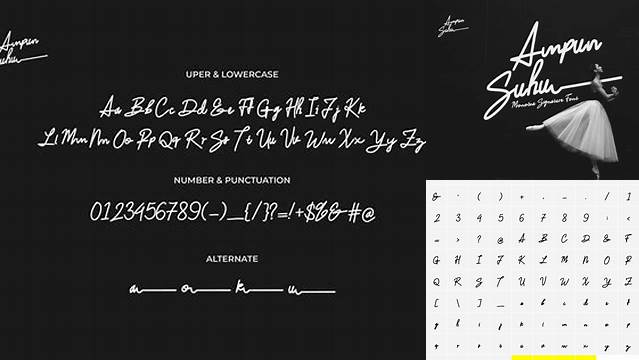
Free Ampun Suhu Font: Hand-Drawn Script For Creative Projects
Hey guys! Are you on the hunt for a font that screams personality and charm? Well, look no further! I'm stoked to dive into the world of the free Ampun Suhu hand-drawn script font. This font is an absolute gem for anyone looking to add a touch of authenticity and handmade feel to their designs. We're going to explore everything from its unique characteristics and potential applications to how you can snag this beauty for your projects. Get ready to unleash your creativity!
What Makes Ampun Suhu Font Special?
First off, let's talk about what sets Ampun Suhu apart from the crowd. This font is more than just letters; it's an expression! It's got that fantastic hand-drawn vibe that instantly makes your designs feel more personable and engaging. Think about it: how often do you come across a font that truly feels like it was crafted by hand? That's the magic of Ampun Suhu. It has that natural, slightly imperfect quality that adds so much character. This font's design gives a human touch to your projects. This font exudes warmth and approachability, making it perfect for projects where you want to connect with your audience on a more personal level. Whether you're a seasoned graphic designer, a budding entrepreneur, or just someone who loves playing around with fonts, Ampun Suhu is a must-have in your toolkit. It's versatile enough to be used in a wide range of applications, and it's super easy to use, even if you're not a font expert. You can create stunning visuals with this font because it has that handmade, personalized look.
Ampun Suhu shines in any creative endeavor where you want to convey a sense of genuine creativity. Let's be real; it’s the little details that make a big difference. Because the free Ampun Suhu hand-drawn script font is not your average font, it’s a work of art. Think of it as the secret ingredient that elevates your designs, making them stand out from the competition. When you choose Ampun Suhu, you're not just picking a font; you're choosing a style that adds depth and personality to your project. This font helps you express your creativity without boundaries. So, buckle up, design enthusiasts! Because you're in for a treat. I'm excited to share all the cool stuff you can do with it, as well as tips to use it like a pro. Ready to turn heads with your designs? Let's get started!
Where Can You Use the Ampun Suhu Font?
Alright, now let's talk about the fun part: where can you actually use this awesome font? The beauty of Ampun Suhu is its versatility. It's like a chameleon; it blends seamlessly into various projects. I'm going to list some of the top uses, and hopefully, it’ll get those creative juices flowing. You'll be able to see how the font can give life to any design project. First, let's talk about branding. If you're starting a new business or giving your existing brand a makeover, Ampun Suhu can be a total game-changer. It's perfect for logos, taglines, and any other visual elements where you want to showcase your brand's personality. This font helps you connect with your audience on a personal level. The slightly imperfect, hand-drawn style gives off a feeling of authenticity that resonates with people, making your brand feel more trustworthy and relatable.
Next up: social media graphics. Ampun Suhu is a star when it comes to creating eye-catching visuals for your social media posts. Think quotes, announcements, or even just spicing up your regular content. Its unique look is sure to grab attention, making your posts stand out in the crowded social media landscape. For invitations and cards, the warmth of the hand-drawn script is perfect for crafting invitations and greeting cards. Whether you're designing wedding invitations, birthday cards, or thank-you notes, Ampun Suhu adds that personal touch that makes your designs feel extra special. Ampun Suhu's use case is not limited to this list, and you can use this font in any creative design project. Moreover, this font is not limited to these fields. You can use it for website headers, blog titles, posters, and more. Remember that this font can be used for your personal and commercial projects. Finally, don't forget about print materials like posters and flyers. This font can create a fantastic, handmade aesthetic. Get ready to see your designs come to life, with this font's unique look. So, no matter your project, Ampun Suhu has got you covered.
Tips for Using Ampun Suhu Font Like a Pro
Okay, let's get into some pro tips on how to get the most out of Ampun Suhu. This font is amazing, but knowing how to use it effectively will take your designs to the next level. I'm going to share some secrets to make your designs stand out. First, let's talk about pairing it with other fonts. Ampun Suhu is a star, but it's even better when it has a supporting cast. Experiment with pairing it with clean, simple sans-serif fonts for headings or body text. This creates a balanced look that is both stylish and easy to read. Think of it like this: the script font is the main course, and the sans-serif is the side dish. The simple font highlights the beautiful script, thus, creating a visually pleasing composition.
Next, consider the color palette. The colors you choose will change how the font is perceived. Ampun Suhu works beautifully with warm, earthy tones, but it can also pop against a bright, bold backdrop. Play around with different color combinations to find what best suits your project. Color is a vital element in design, so don't be afraid to experiment. Finally, think about the overall layout. The spacing, alignment, and arrangement of elements on your page are super important. Give your font some breathing room. Don't overcrowd your design. A little bit of white space can go a long way. Also, experiment with different alignment styles to see what looks best. The goal is to create a design that is both visually appealing and easy to understand. So, always remember to keep it simple, and let the font shine. With these tips, you'll be able to unleash the full potential of Ampun Suhu. You'll be on your way to creating stunning designs that grab attention.